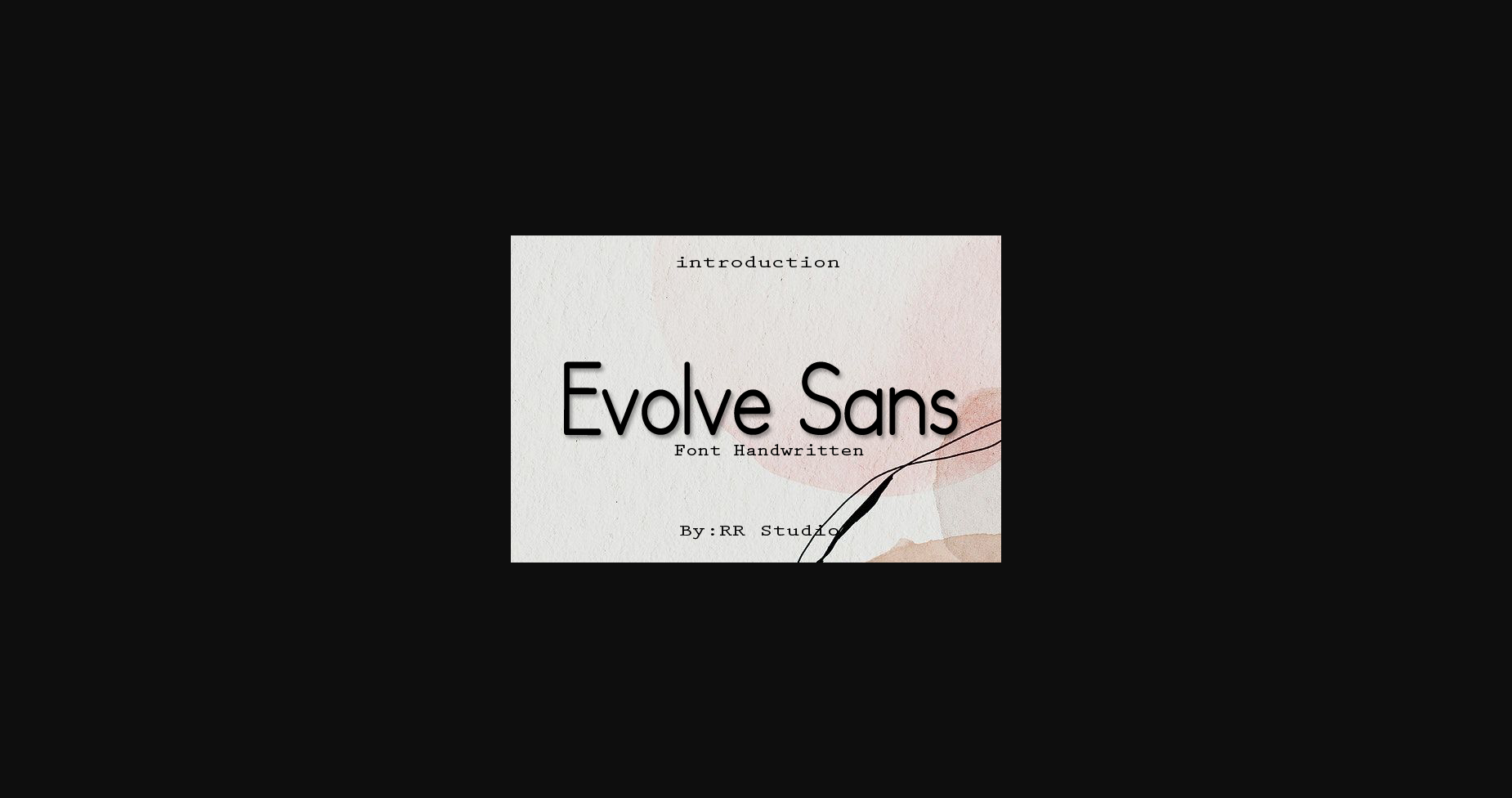
Evolve Sans Font
About Evolve Sans Font
Evolve Sans is a stylish and clean sans serif font. It looks neat on wedding invitations, thank you cards, quotes, greeting cards, logos, business cards and every other design which needs a customized touch.